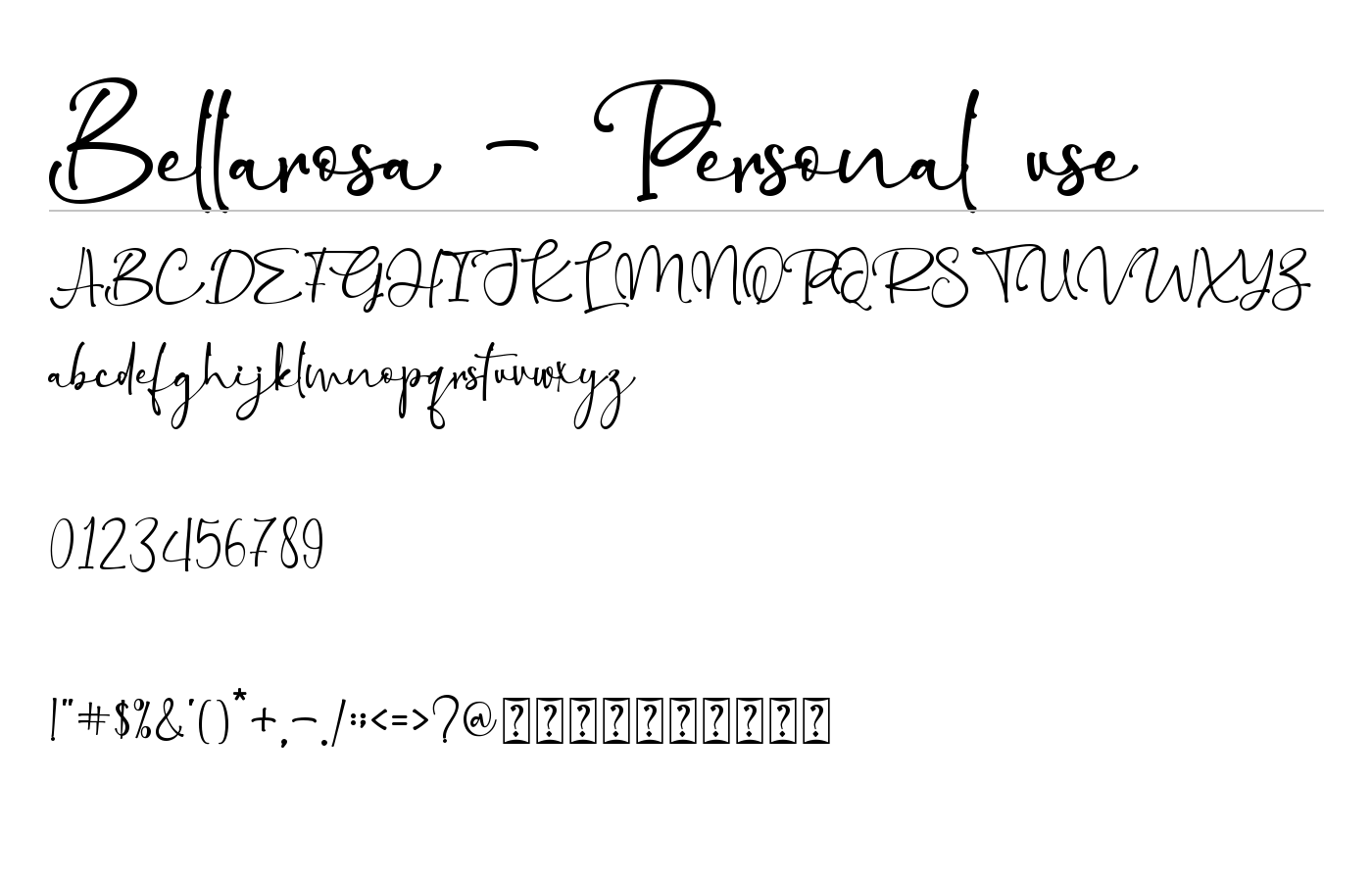
Bellarosa is a delicate, handwritten script font with a thin, elegant stroke and a high x-height that gives it a friendly yet refined feel. Its flowing letterforms and tall, slender characters make it perfect for personal projects, invitations, and branding that seeks a charming, approachable touch. This font works beautifully in contexts where a touch of warmth and individuality is desired.
Bellarosa - Personal use Font
About Bellarosa - Personal use Font
| Font family | Bellarosa - Personal use Font |
| Designer | Letterara |